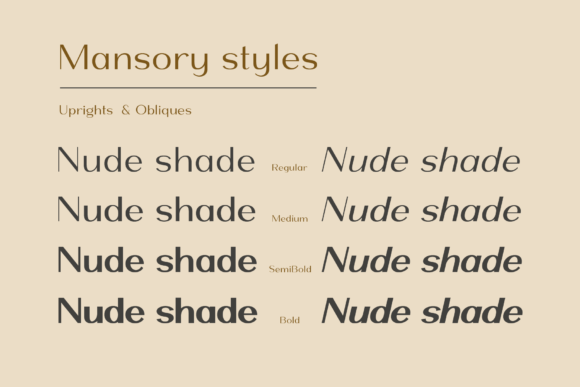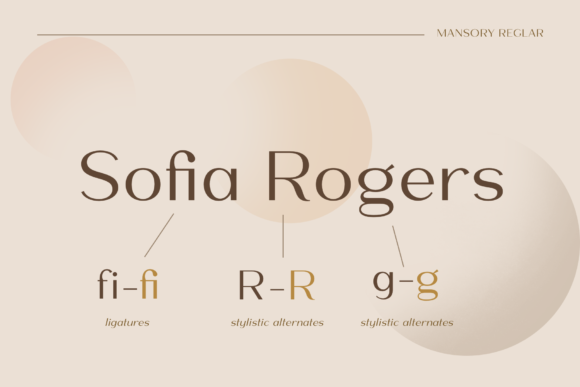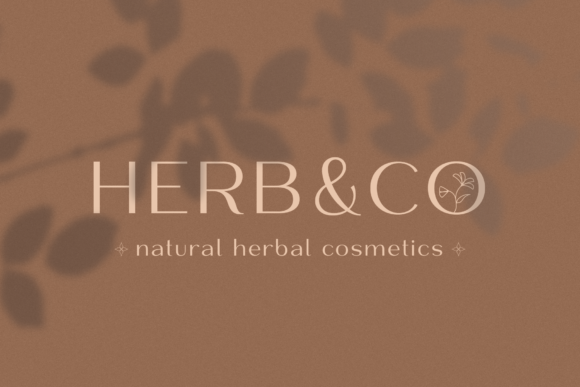
Mansory is a truly gorgeous and light sans serif font that will work in a wide range of designs. It’s incredibly well balanced and will turn any design idea into an aesthetic masterpiece.